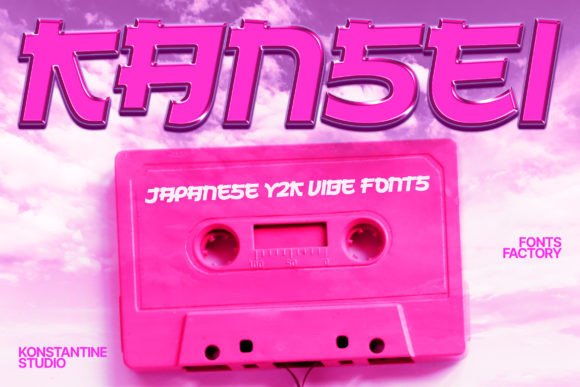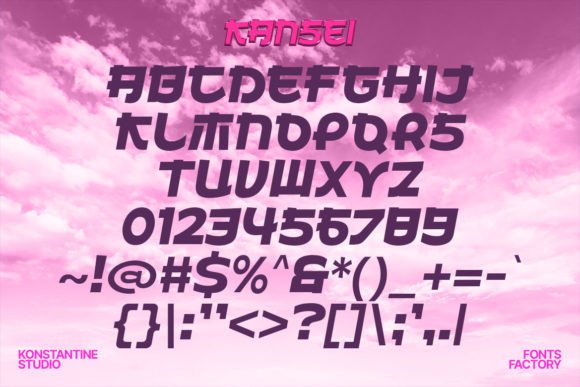
Kansei Font
Kansei is a Japanese vibes font with a touch of Y2K era that has been rising everywhere nowadays.
Perfectly fit for your logo, branding, game asset, esport, poster, merchandise, y2k design, graphic design project, social media post, and many more.
It’s an ALL CAPS font, so the uppercase and lowercase remain the same.